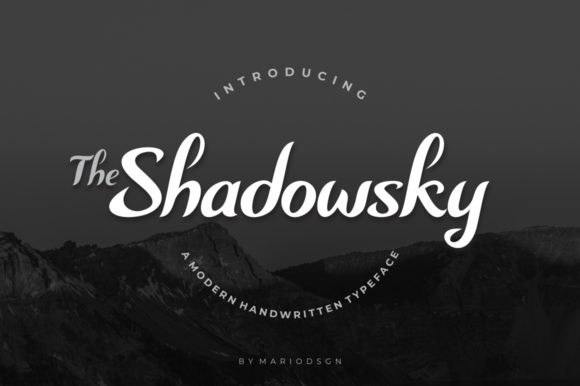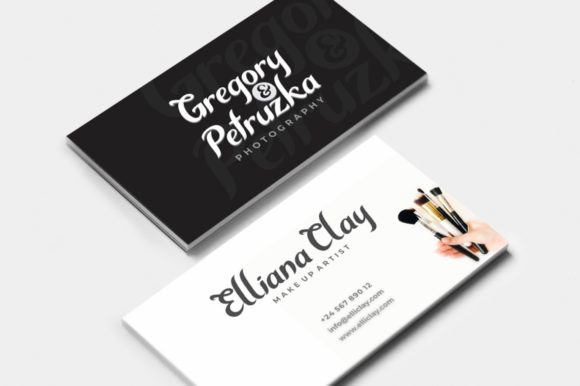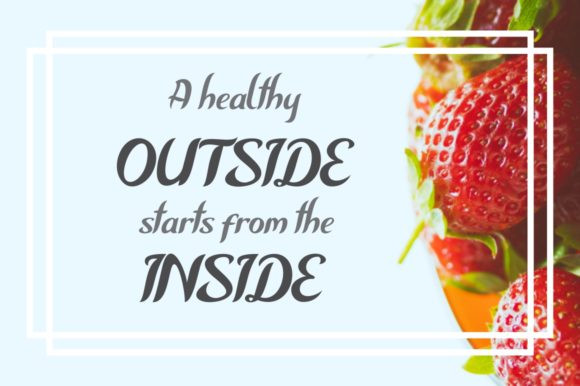
Shadowsky Font
Shadowsky is a modern and sharp handwritten font. This font reads as strong, confident, and dynamic and can add tons of nostalgic character to your designs.